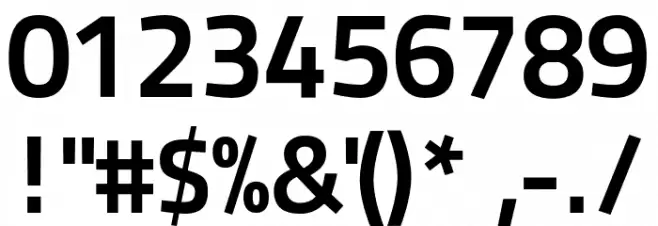
TitilliumMaps29L-800wt Font
TitilliumMaps29L-800wt Description
This font features a clean and modern sans-serif design with a geometric structure. The characters are well-proportioned, offering a harmonious balance between straight lines and subtle curves. The uppercase letters are bold and assertive, while the lowercase letters maintain a friendly and approachable appearance. Numerals are clear and easy to read, making them suitable for various applications. The special characters are distinct and maintain the overall aesthetic of the font. This typeface is versatile, suitable for both digital and print media, and can be used in a variety of contexts.
A modern, geometric sans-serif font with clean lines and balanced proportions from Uncategorized fonts.